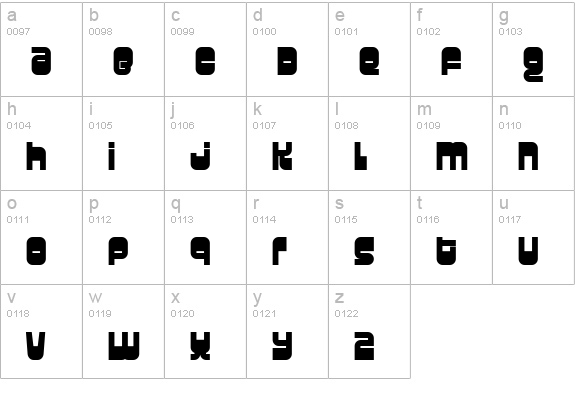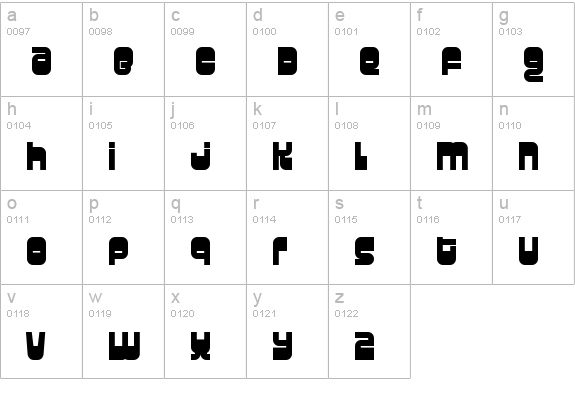
Gravity Font Details
Gravity font is a modern and sleek typeface that exudes elegance and sophistication. Its clean lines and sharp edges make it perfect for a wide range of design projects, from branding to editorial layouts. The Gravity font family includes multiple weights and styles, providing versatility and flexibility in your creative endeavors. Whether you're designing a logo, website, or print materials, Gravity font will elevate your designs to a whole new level. And the best part? Gravity font is available for free download at FontsMarket.com! This means you can easily access this high-quality typeface without breaking the bank. Don't miss out on the opportunity to enhance your designs with Gravity font and make a lasting impression on your audience. Download it today and start creating stunning visuals with this exceptional font!